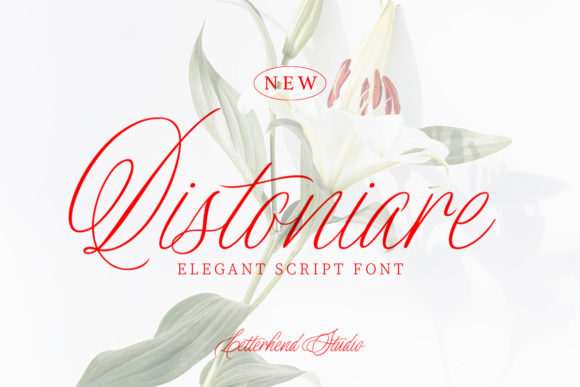
Introducing Distoniare Script Font: Elevate Your Design with Authentic Handwriting
In the world of typography, script fonts hold a special place for their elegance, personality, and ability to convey emotions. Among these, the Distoniare Script Font stands out for its unique blend of authenticity and style. This beautifully crafted font is based on genuine handwriting, offering a natural signature style that can elevate any design project. Whether you’re a graphic designer, a DIY enthusiast, or a business owner looking to brand your products, Distoniare is a versatile choice that can add a personal touch to your creations.
The Charm of Distoniare Script Font
Distoniare Script Font is not just another script font; it’s a reflection of personal handwriting, capturing the essence of human touch and imperfections that make a piece truly unique. Its characters are designed to mimic the fluidity and natural flow of handwritten text, making it perfect for projects where a personal and intimate feel is desired. From the swirls of the initial letters to the finishing flourishes, Distoniare exudes elegance and sophistication.
Usage Ideas for Distoniare Script Font
The versatility of Distoniare Script Font makes it suitable for a wide range of applications. Here are some ideas to get you started:
- Logos: Create a memorable brand logo that stands out with a personal touch.
- Invitations: Whether it’s a wedding, birthday, or corporate event, Distoniare adds a touch of elegance.
- Labels and Packaging: Make your product stand out on the shelves with beautifully designed labels.
- Magazines and Books: Use Distoniare for headings or quotes to add a sophisticated feel to your content.
- Greeting/Wedding Cards: Personalize your cards with a font that feels like it was written with love.
- Fashion and Makeup: Perfect for branding in the fashion and beauty industry, adding a luxurious feel.
- Stationery: Elevate your brand’s stationery, including letterheads, envelopes, and notebooks.
- Novels: Add a personal touch to your book covers or interior quotes.
Why Choose Distoniare Script Font?
There are several reasons why Distoniare Script Font should be your go-to choice for your next project:
Authentic Handwriting Style
Distoniare is crafted to reflect the authenticity of handwriting, providing a genuine and personal feel to your designs.
Natural Signature Style
The font’s natural flow and signature style make it perfect for projects requiring a personal touch.
Versatility
From formal to casual projects, Distoniare adapts seamlessly, making it a versatile addition to your font library.
Ease of Use
Tips for Using Distoniare Script Font Effectively
To make the most out of Distoniare Script Font, consider the following tips:
- Pair with Complementary Fonts: For optimal readability, pair Distoniare with clean, sans-serif fonts for body text.
- Adjust Letter Spacing: For headings, slightly adjust the letter spacing to enhance readability and aesthetics.
- Limit Usage: While Distoniare is beautiful, use it sparingly to maintain its impact. Consider using it for headings or key phrases.
- Experiment with Colors: Distoniare looks stunning in various colors, especially metallic or pastel shades that can enhance its elegant feel.
Distoniare Script Font is a beautiful addition to any designer’s toolkit, offering a unique blend of authenticity, elegance, and versatility. Its natural signature style and handwriting-like flow make it perfect for a wide range of projects, from professional branding to personal DIY creations. By incorporating Distoniare into your designs, you can add a personal touch that sets your work apart. So, why settle for ordinary when you can create something extraordinary with Distoniare Script Font?